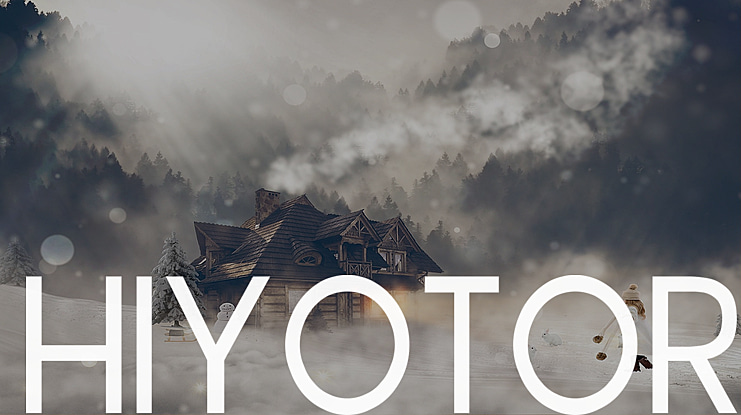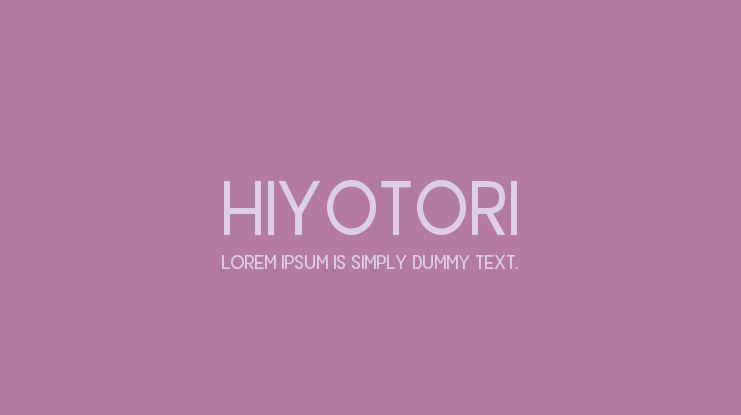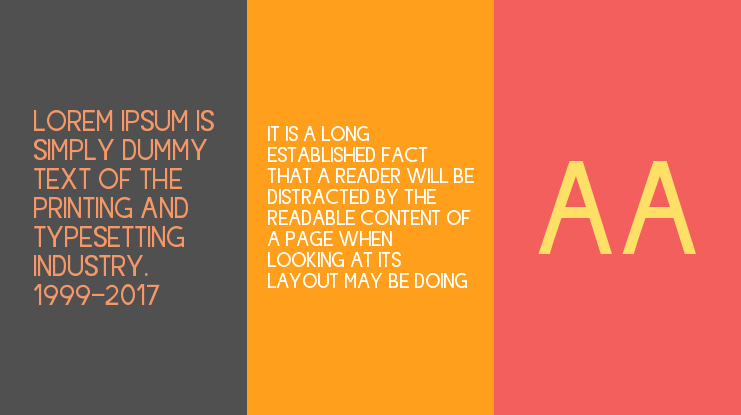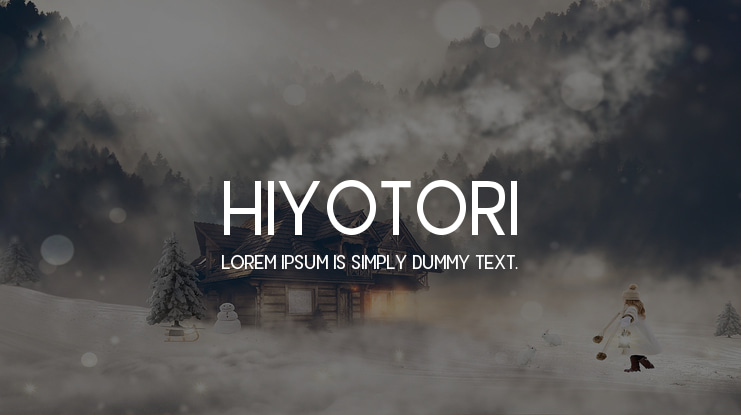
Hiyotori Font Family
Wahyu Saputra
Hiyotori is a gorgeous Japan-style sans serif that is extremely versatile and timeless. With a full suite of uppercase and lowercase letters, Hiyotori can be used in many style contexts and design environments. Perfect for invitations, magazines, websites, logos, and more! File Included: Hiyotori Regular OTF/TTF Hiyotori Bold OTF/TTF Hiyotori Black OTF/TTF
Hiyori is equipped with 3 different styles namely regular, bold and black version. It is possible that I will add Hiyotori's italic style if this font sells well. That's all I do because it's very wasteful if no one buys. I hope you enjoy this font. If you have any questions please don't hesitate to drop me a message..